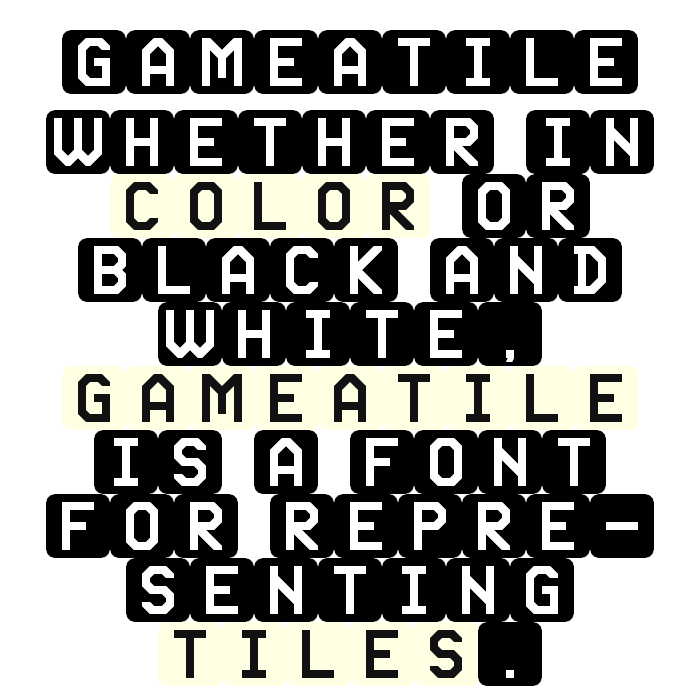
• This is the black and white version of Gameatile. For the color version, see this.
The black and white version should only be used when the software you want to use it in does not support the COLR color fonts.
— Inspirations —
Tiles Final by JOEY_TOYS_
Dominoes by JOEY_TOYS_
Tiles and Dominoes by tredakam30
— Private Use Assignments —
E000-E7FF: My usual 7-segment and arbitrary fraction characters for monospaced fonts
E800-E81F: Single tiles for 0, and 7-18; The tiles for 1-6 are in the Miscellaneous Symbols Unicode block
E820-E83F: Top parts of dominoes
E840-E85F: Bottom parts of dominoes
E860-E87F: Left parts of dominoes
E880-E89F: Right parts of dominoes